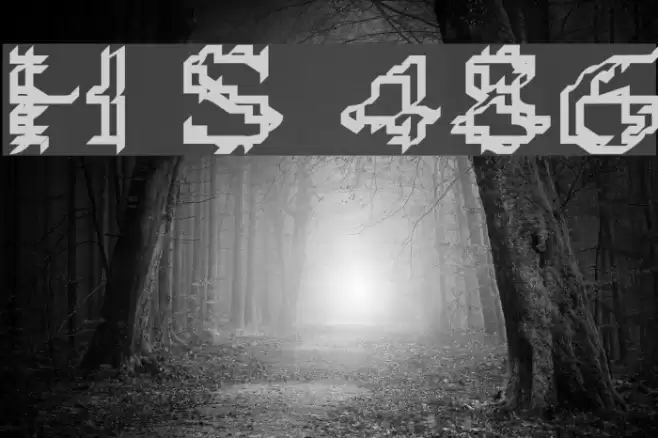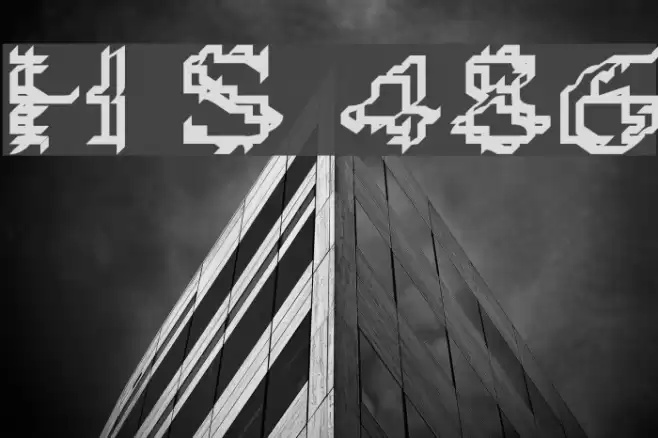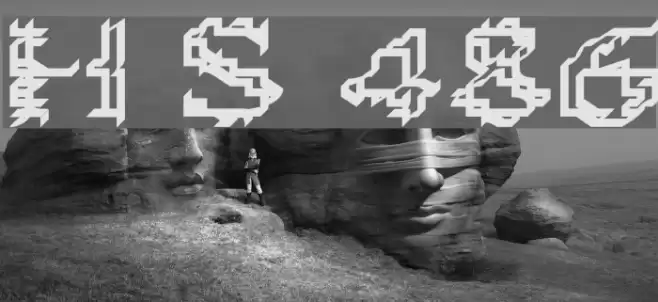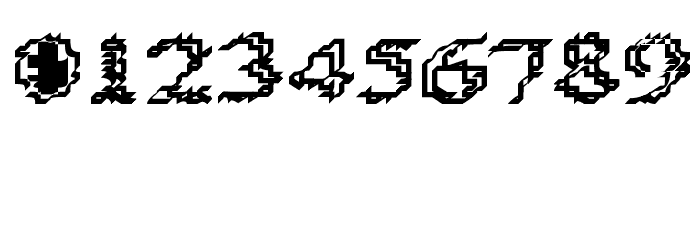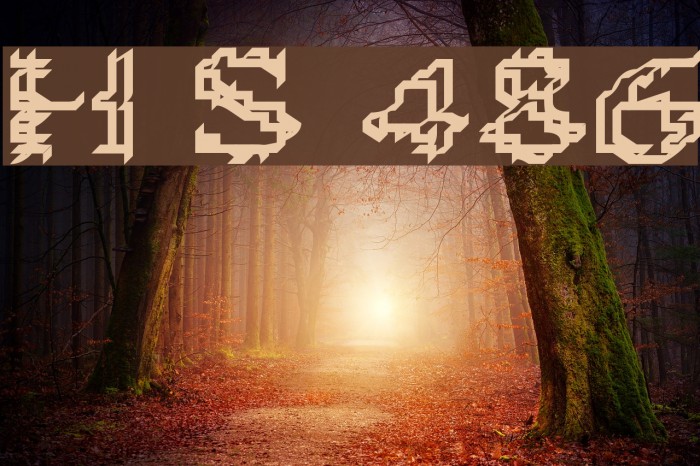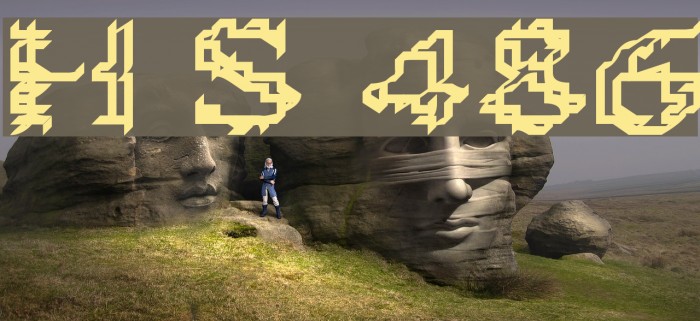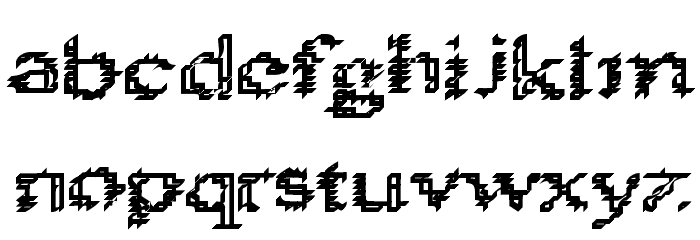
Heat Sinks 486 Font
Heat Sinks 486 Description
This font features a highly distinctive and edgy design, characterized by jagged, angular strokes that create a sense of movement and energy. The letters have a fragmented appearance, with sharp, irregular edges that give the font a dynamic and aggressive look. The uppercase and lowercase letters maintain a consistent style, with each character appearing as though it has been shattered or torn. The numbers and special characters follow the same design principles, ensuring uniformity across all glyphs. This font is ideal for projects that require a bold, eye-catching aesthetic, such as posters, album covers, or video game titles.
A jagged, edgy font with sharp, angular strokes and a fragmented appearance from Typewriter fonts.